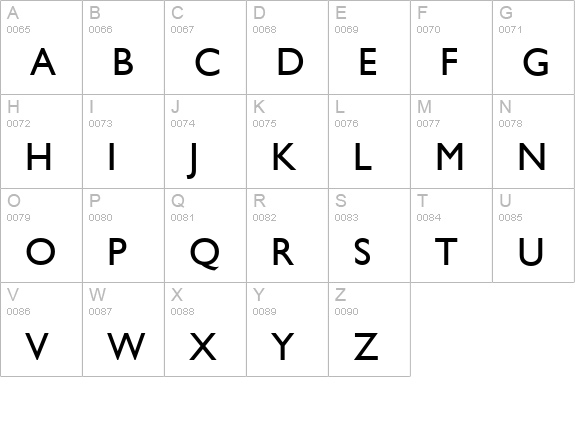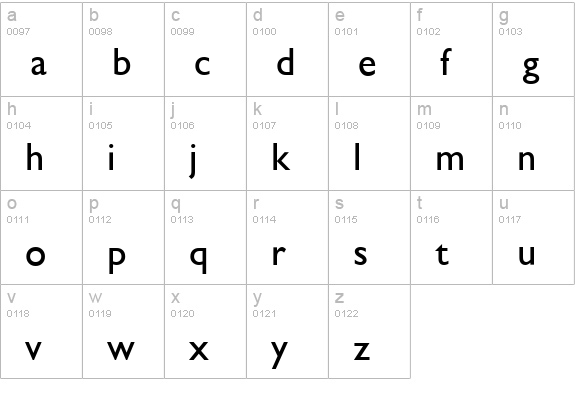
Chantilly-Medium-Regular is a balanced, medium-weight variant in the Chantilly typeface family \xE2\x80\x94 well suited to sub-headlines, navigation, and balanced editorial work.
Chantilly-Medium-Regular is a versatile and elegant font that exudes sophistication and charm. With its balanced letterforms and timeless design, this font is perfect for a wide range of projects, from branding to print materials. The medium weight strikes the perfect balance between readability and visual impact, making it ideal for headlines, body text, and everything in between. What sets Chantilly-Medium-Regular apart is not only its timeless style but also the fact that it is available for free download at FontsMarket.com. This means that you can easily access and use this high-quality font in your projects without any cost. Whether you're a designer looking to add a touch of class to your work or a business owner in need of a sophisticated font for your branding, Chantilly-Medium-Regular is a fantastic choice that won't break the bank. Download Chantilly-Medium-Regular for free today and elevate your designs with this classic and versatile font.